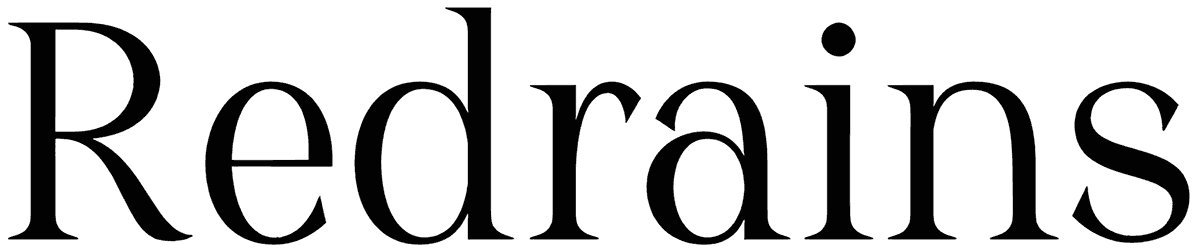
Redrains Font
Redrains is a professional basic serif font that has a classic feel! What makes this particular serif font different and special compared to the others is its mature as well as fashionable design. As simple as it looks it offers bold elegant characters that are perfect for one reliable typography.
This Redrains font is very formal, it provides a full set of stylish letterforms that are serious. It gives your design a trustworthy feel, especially in books, magazines, fashions, headlines, etc.